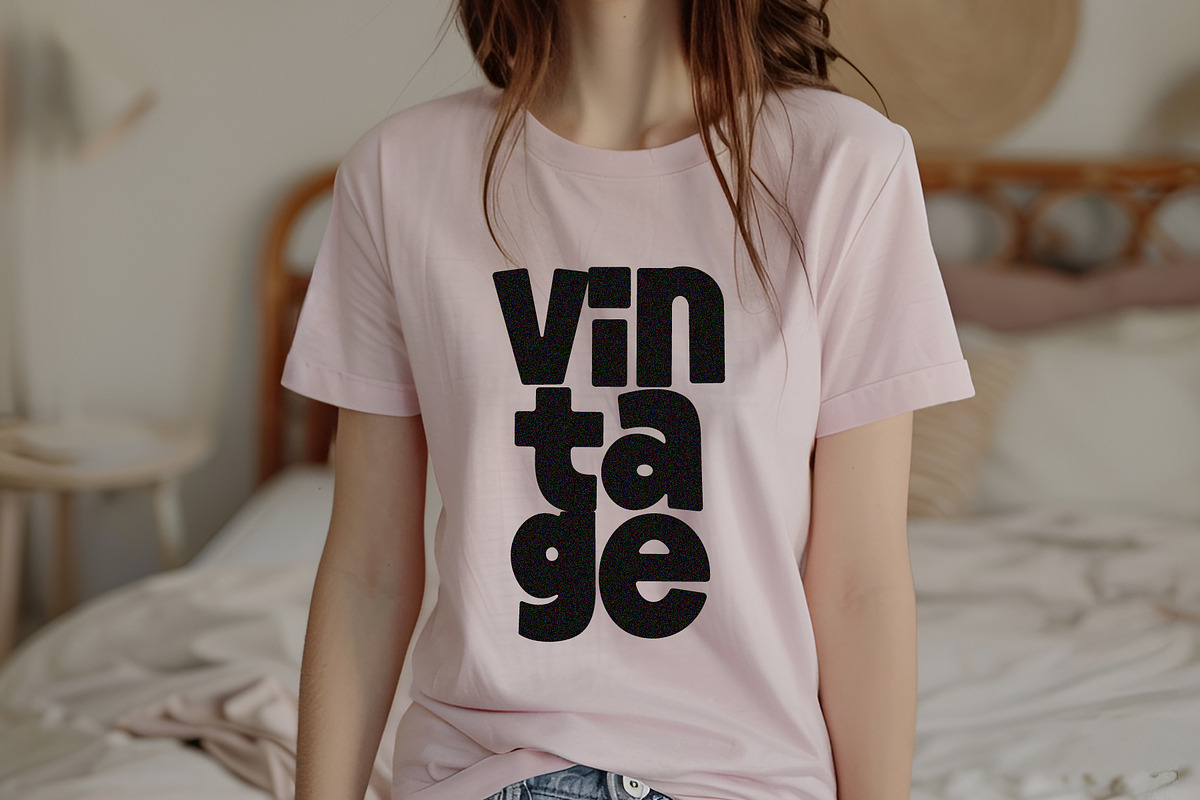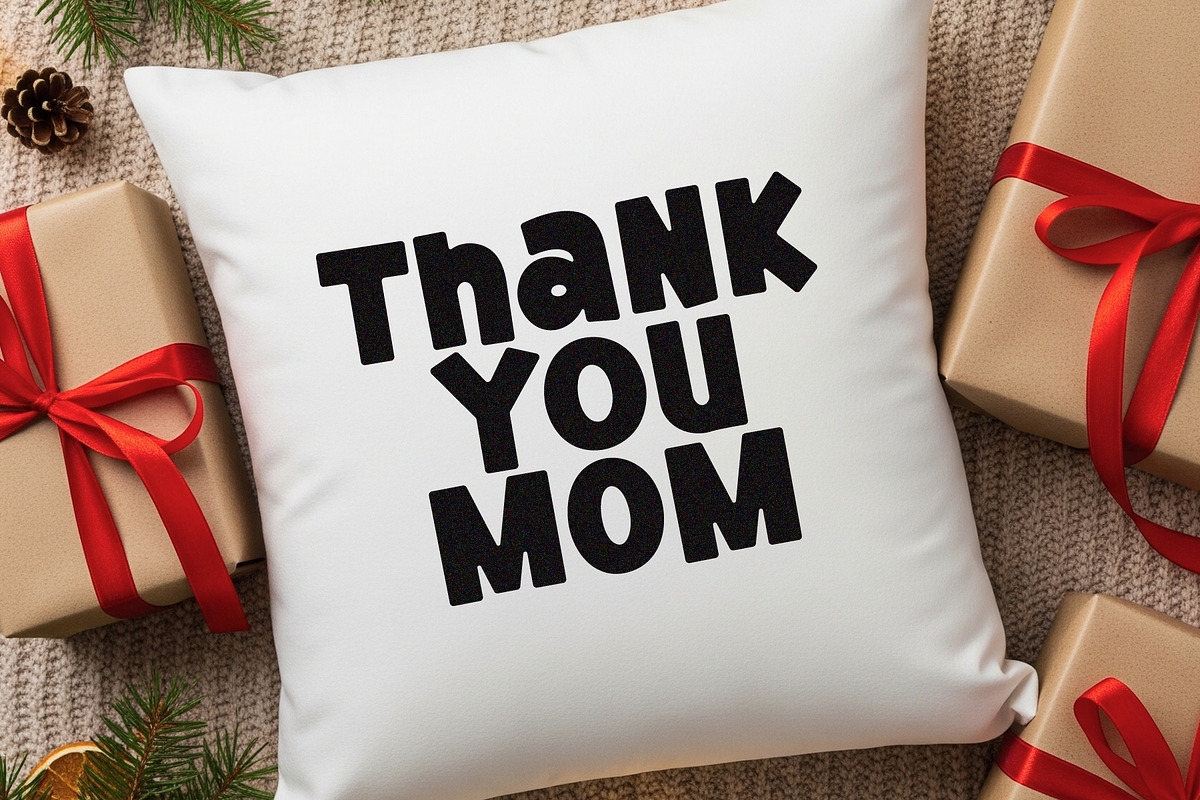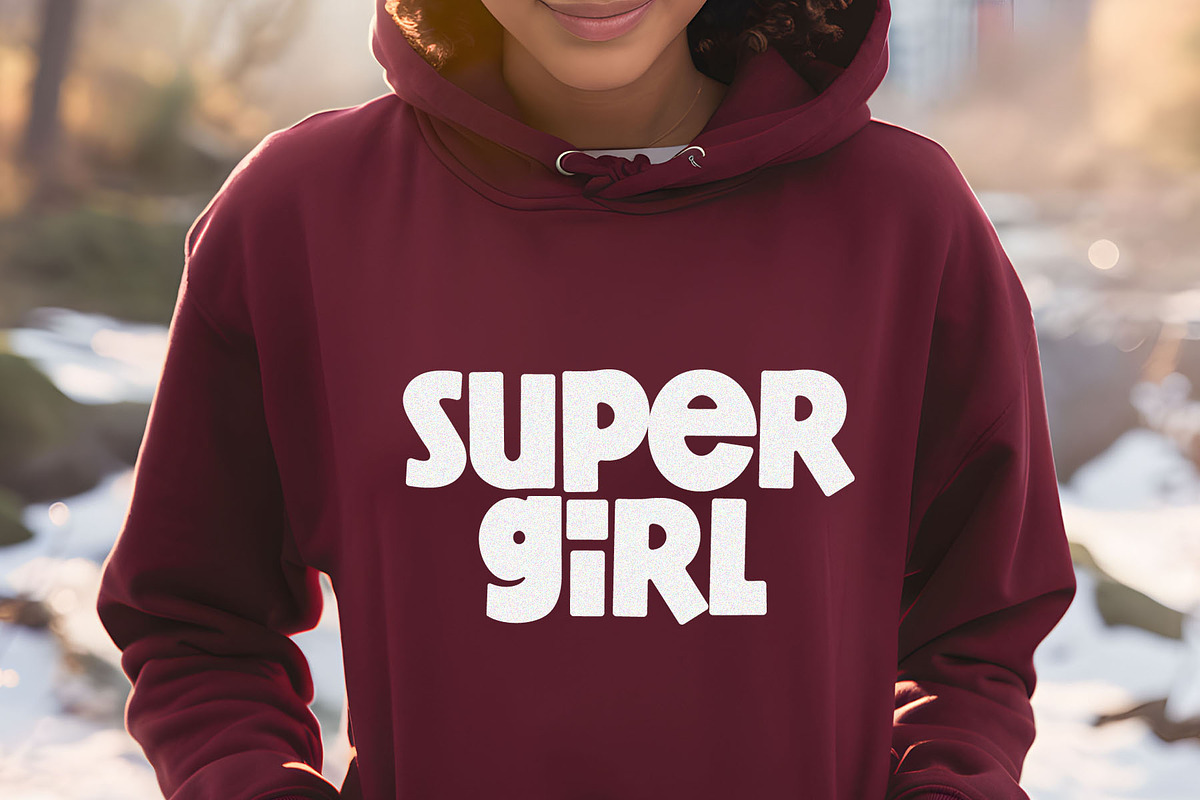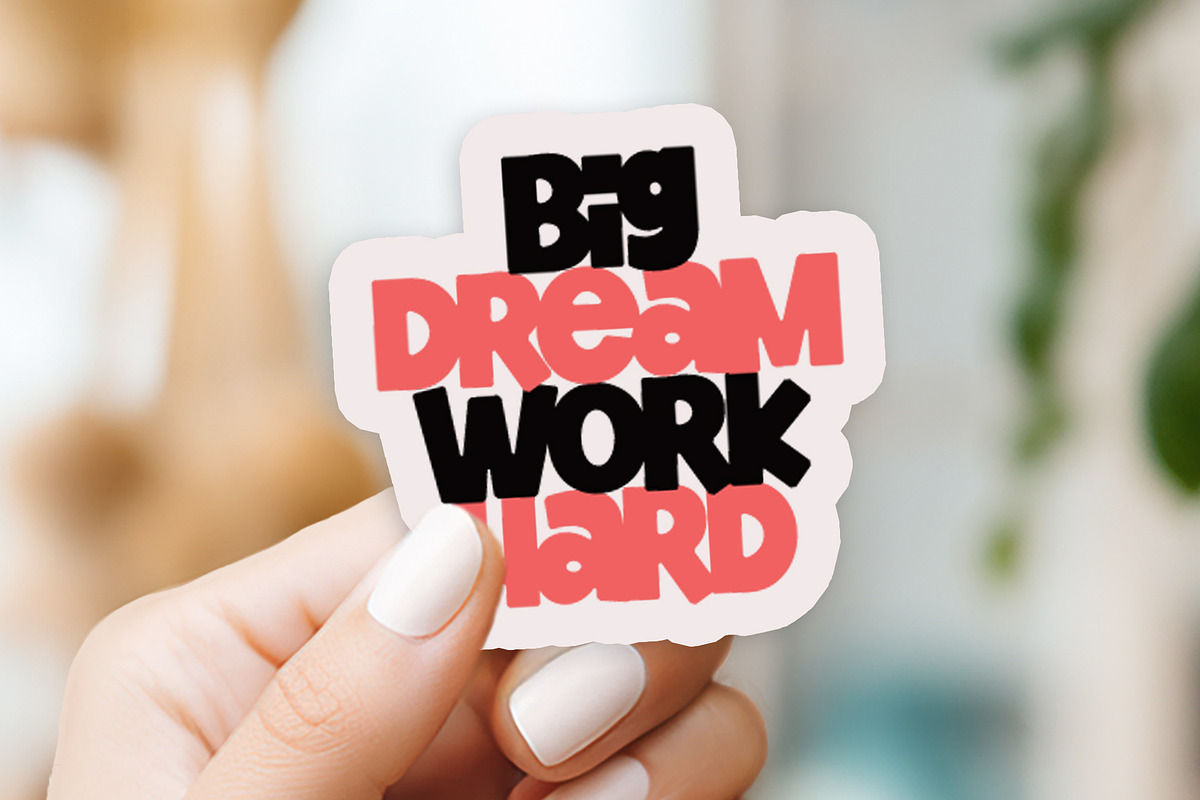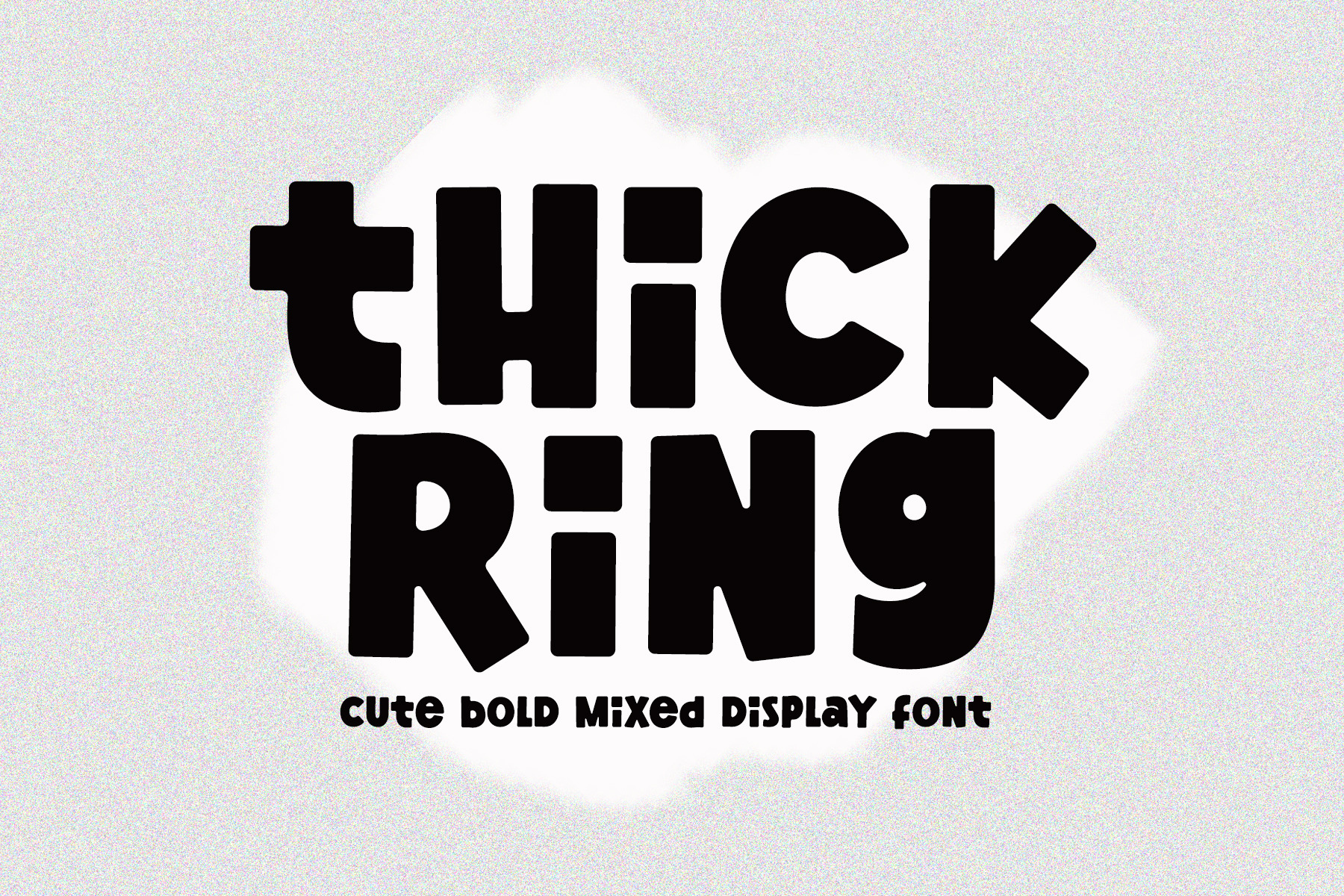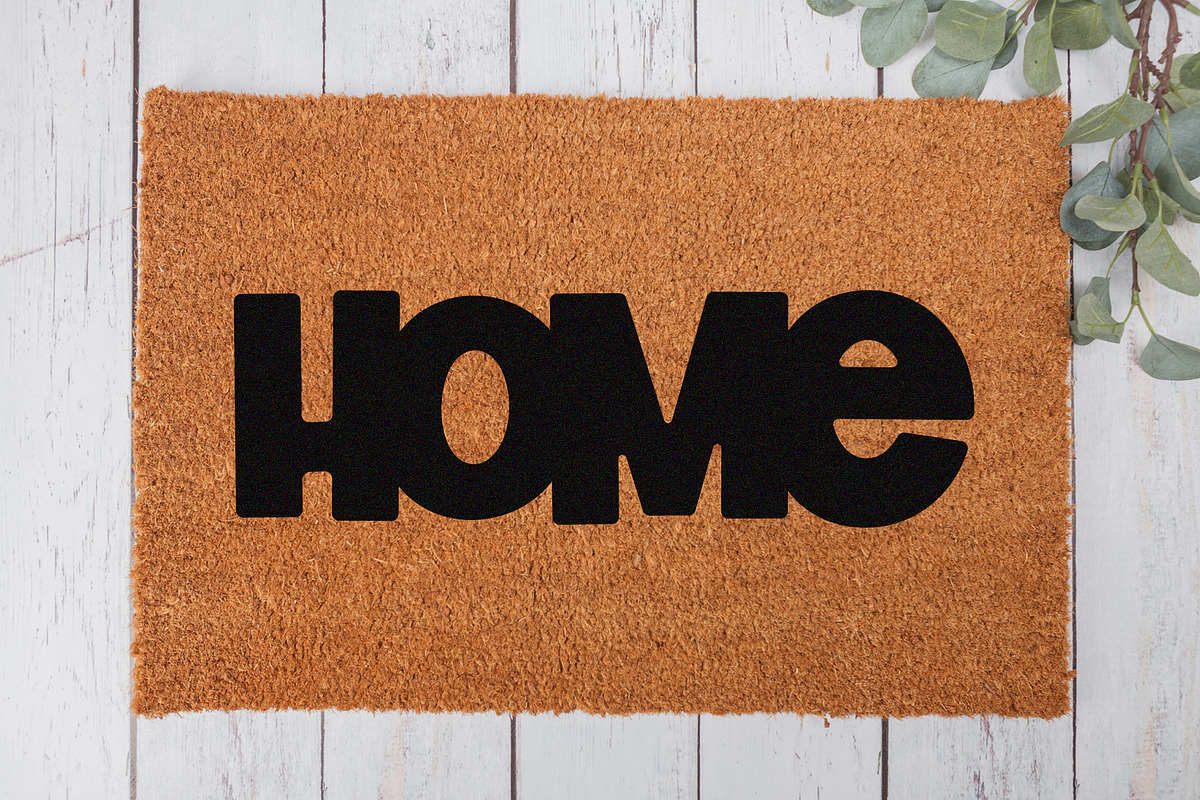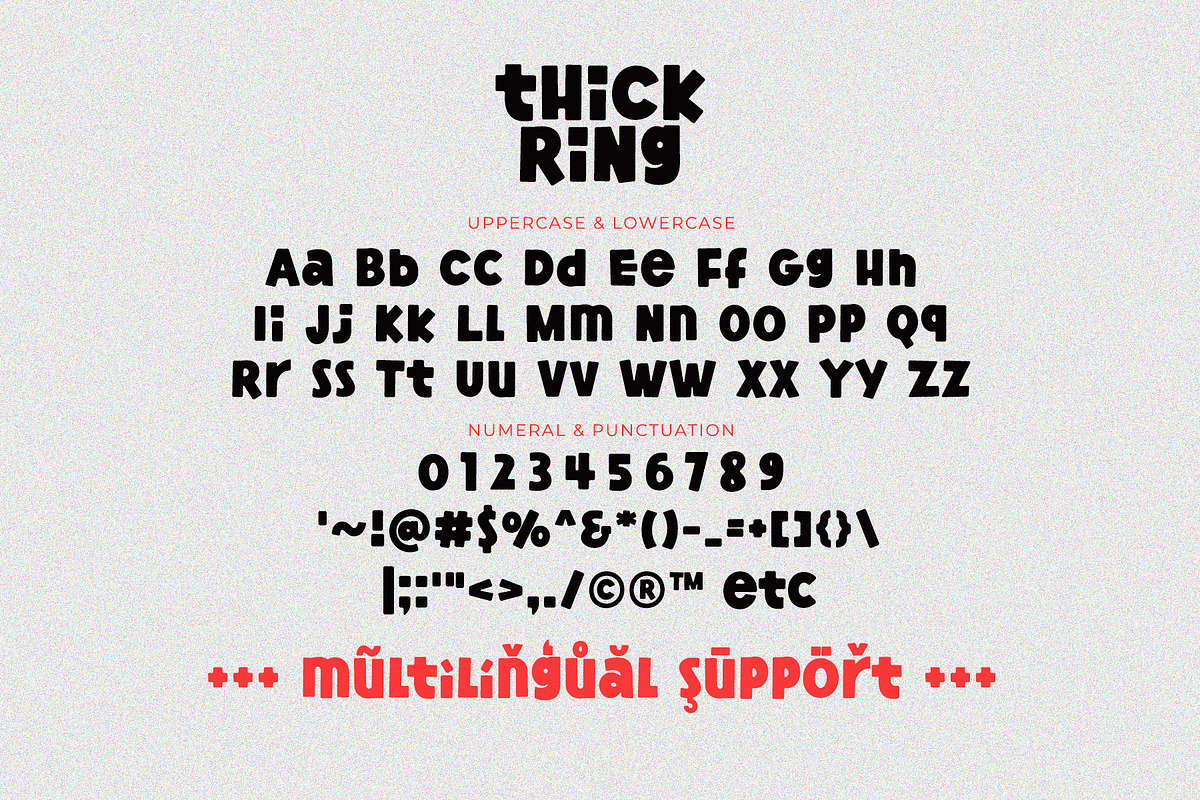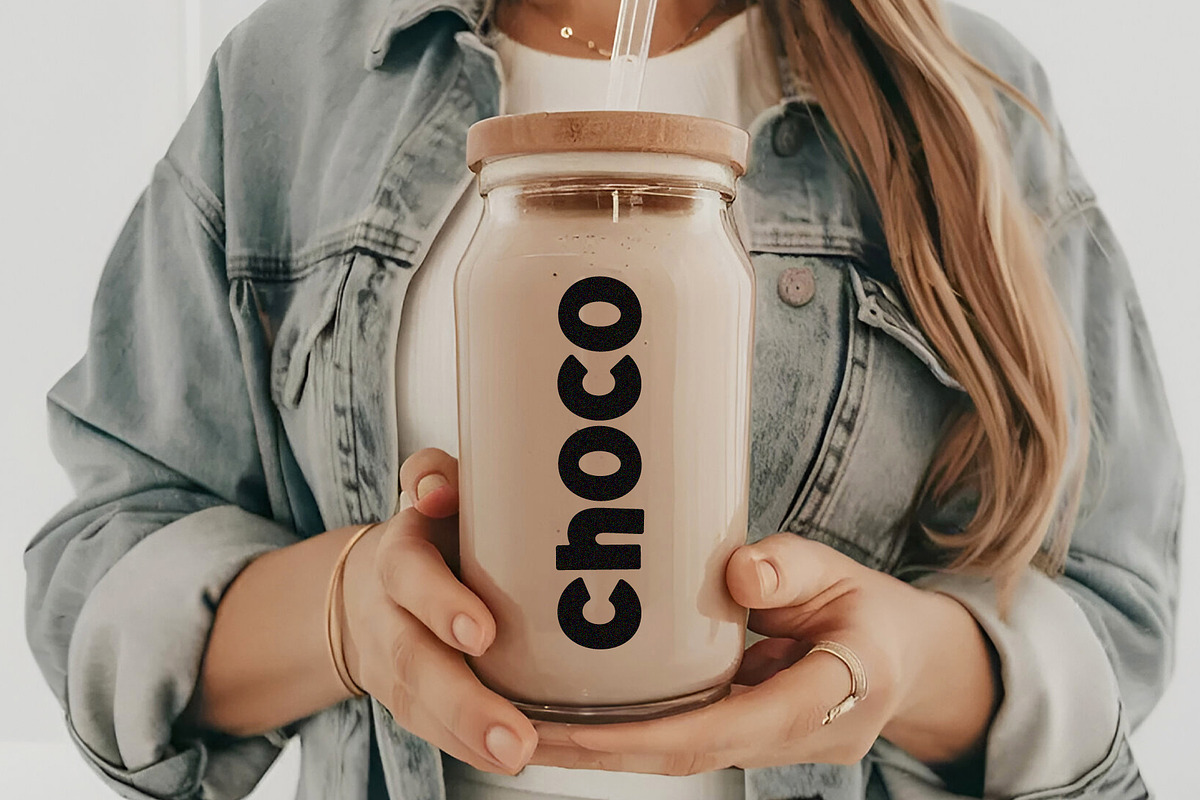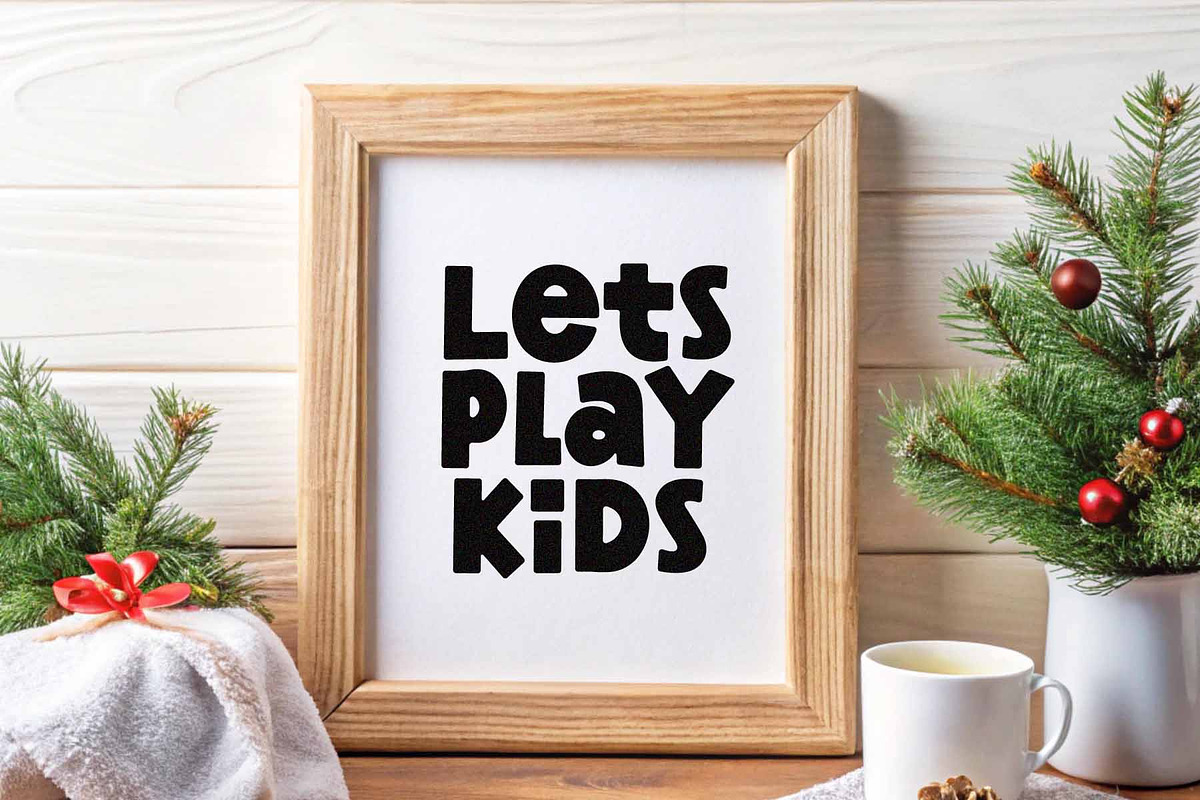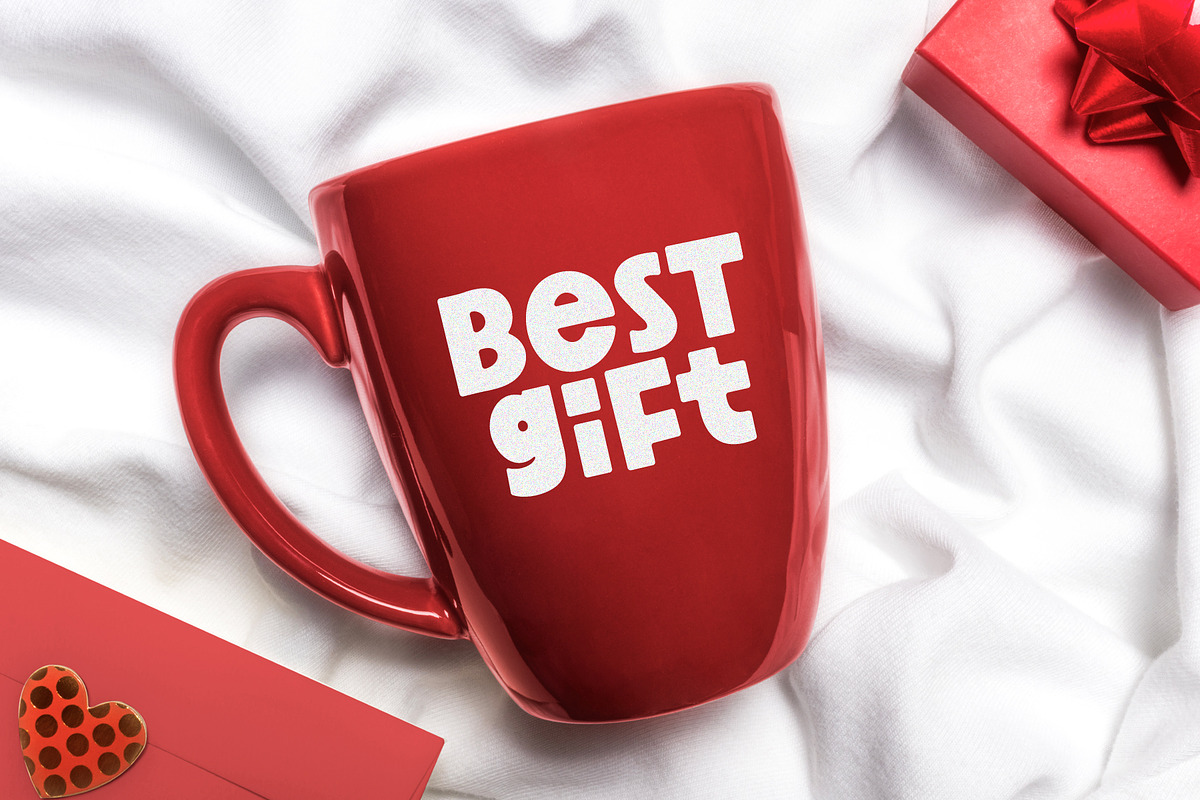
Thick Ring - Cute Mixed Bold Font
Thick Ring is cute and bold display font. This font can be mixed among uppercase and lowercase, to make the design more quirky and festive.
Thick Ring is pretty font for wide ranges of design with cute theme, such as t-shirt, display, crafting, sticker, quotes, tumbler, sublimation, and many more.
- Most Multilingual Accent